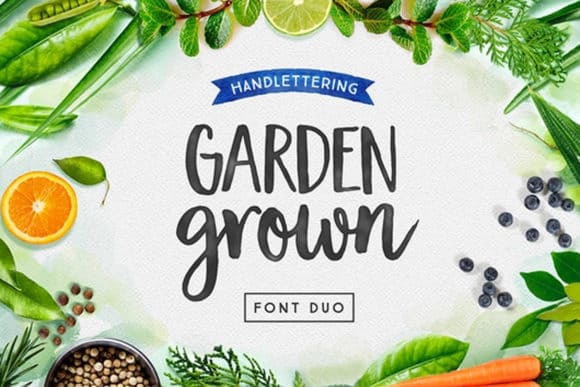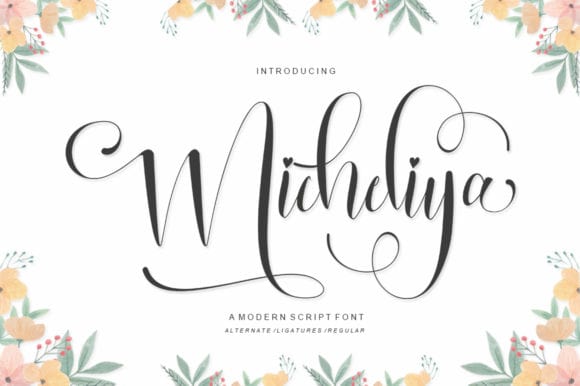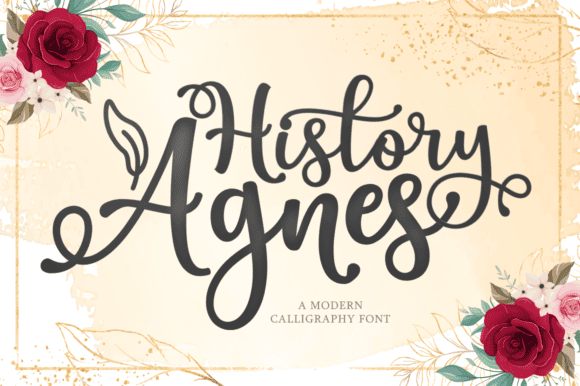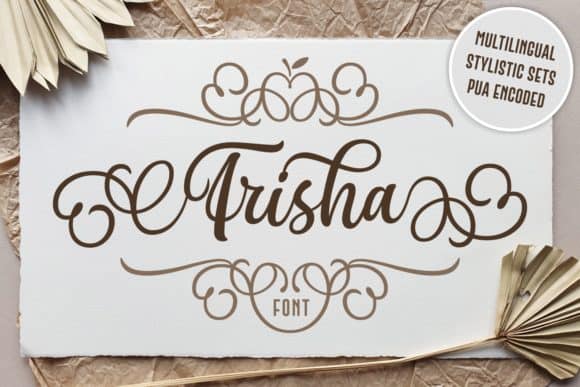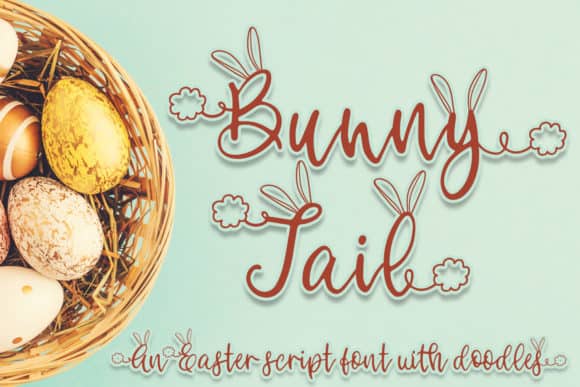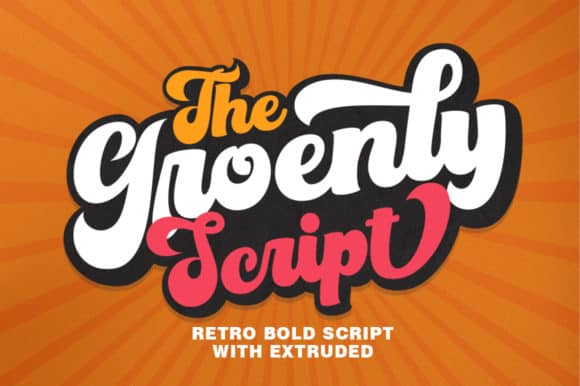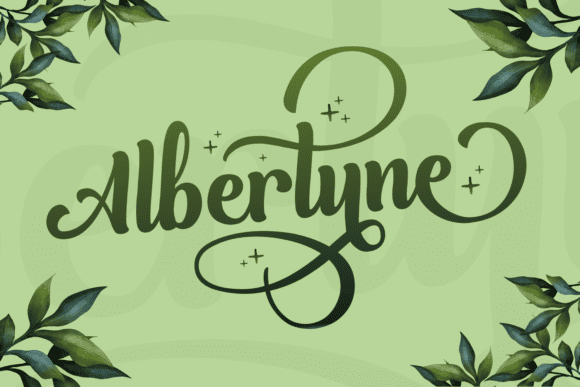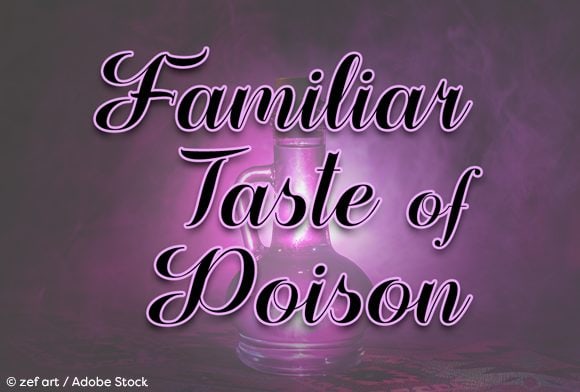
1. Garden Grown Font
Garden Grown is a magical duo font. It features amazing alternates and ligatures and all caps characters. Fall in love with its authentic feel and use it to create gorgeous wedding invitations, beautiful stationary art, eye-catching social media posts, and cute greeting cards.
2. Micheliya Font
Micheliya is a magical script font carefully created with a touch of elegance. This is a beautiful combination of timeless elegance and authentic calligraphy. It features an incredibly classic style, while still keeping a friendly feel. Micheliya is the perfect font for making original and outstanding designs.
3. History Agnes Font
History Agnes is a magical script font carefully created with a touch of elegance. This is a beautiful combination of timeless elegance and authentic calligraphy. It features an incredibly classic style, while still keeping a friendly feel. History Agnes is the perfect font for making original and outstanding designs.
4. Yollina Font
Yollina feels charming and vibrant and will turn any design project into a true standout. Get inspired by its unique charm!
5. Frisha Font
Frishais inspired by classic typography and brings its own unique style to any design project. This fantastic script font is best suited for headlines of all sizes, as well as for blocks of text that have both maximum and minimum variations. Whether it’s for web, print, moving images or anything else – Frisha will look spectacular.
6. Cinderella Font
Cinderella is a gorgeously light and playful script with a distinct calligraphic feel. It’s a great font for a wide range of crafting projects!
7. Bunny Tail Font
Bunny Tail celebrates all things Easter. This cute script will work like a charm in any Easter or spring craft!
8. Groenly Script Font
The Groenly Script delivers a classic calligraphic style with a retro edge. Get inspired by its groovy feel!
9. Albertyne Font
Albertyne is a playful, sweet and gorgeous hand-written font featuring luscious swashes. It’s perfect for designers, quotes, invitations, social media posts and much more! Ignite your creativity with this fun font.
10. Familiar Taste of Poison Font
Familiar Taste of Poison is an intoxicating script that will add elegance and charm to your projects!